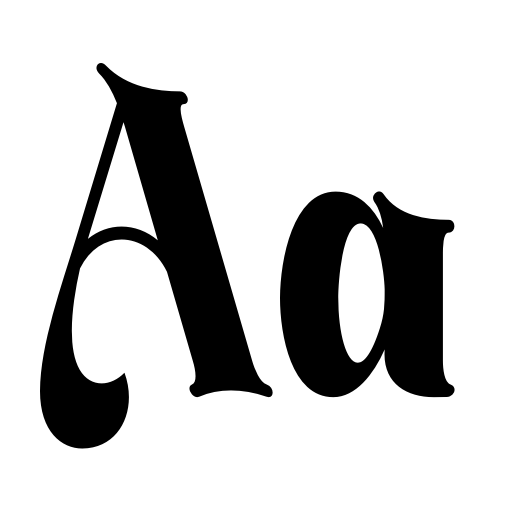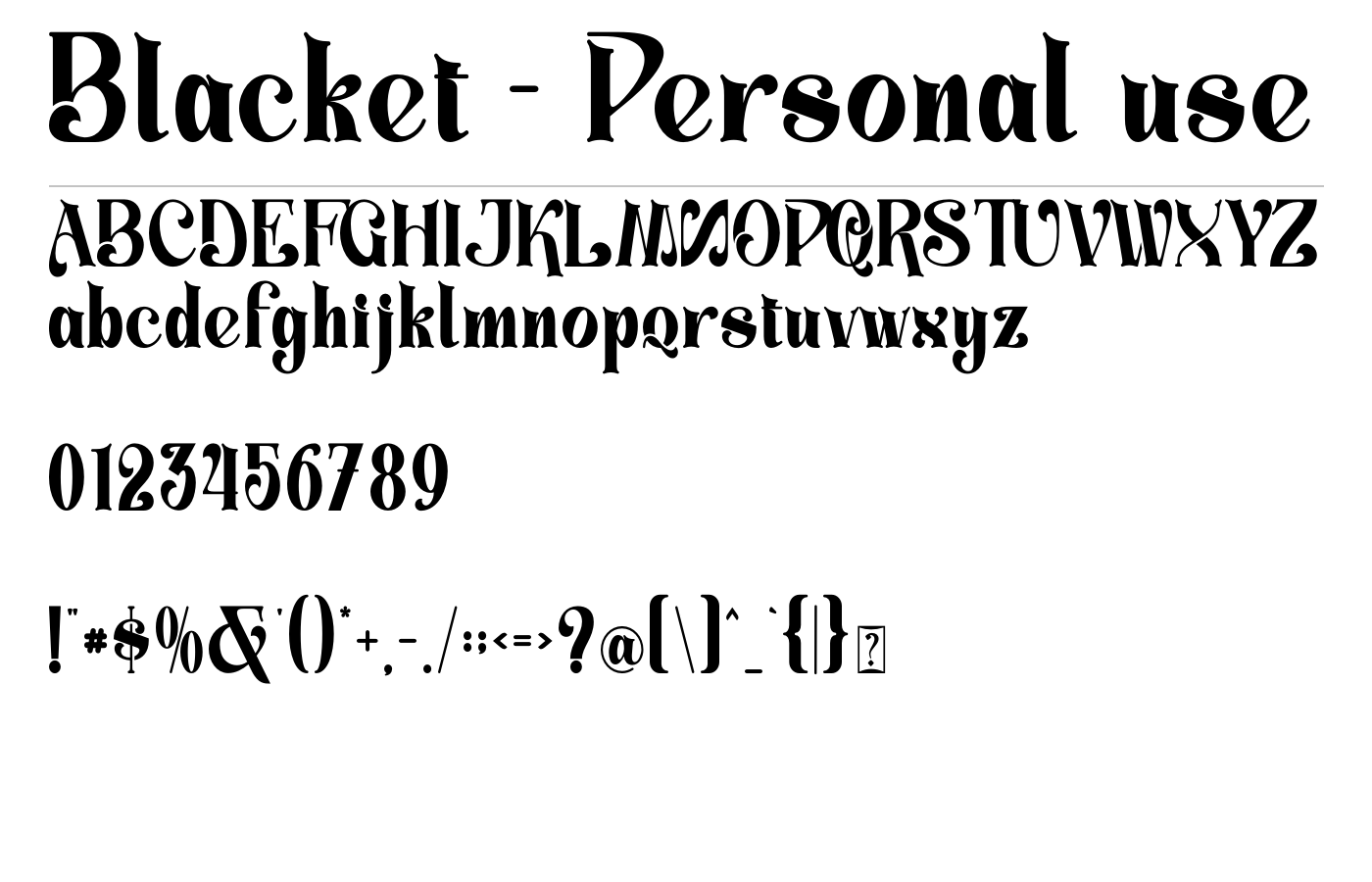
Blacket is a bold, decorative serif font with a playful yet vintage feel, featuring high contrast between thick and thin strokes and unique, ornate letterforms that give it strong personality. Its narrow width and stylized curves make it ideal for eye-catching headlines, logos, and branding where a touch of elegance and creativity is desired. This font works best in designs that seek to combine classic charm with a whimsical, artistic flair.
Blacket - Personal use Font